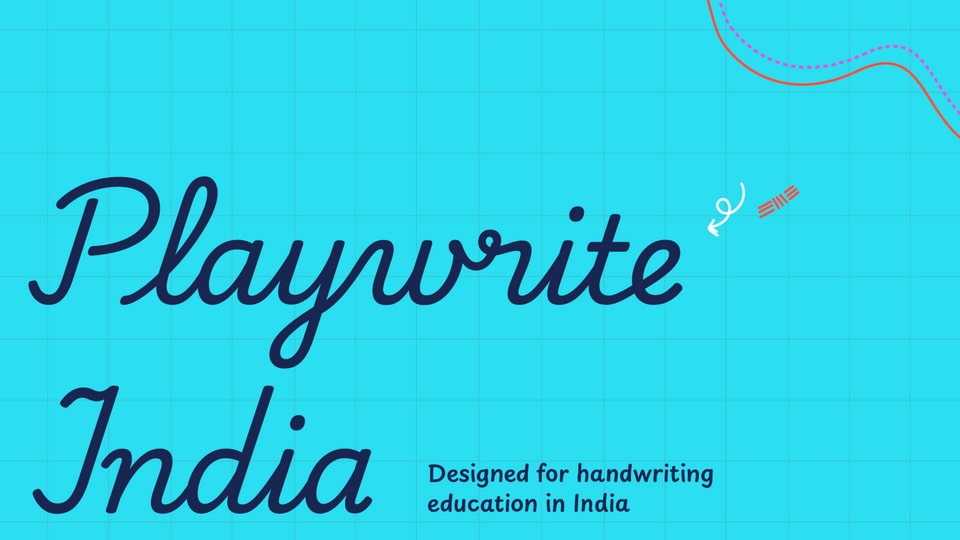
Playwrite India font, a typeface that allows the creation of primary school cursive fonts. This slanted continuous cursive style features medium-length extenders and draws inspiration from Vere Foster’s New Civil Service writing models.